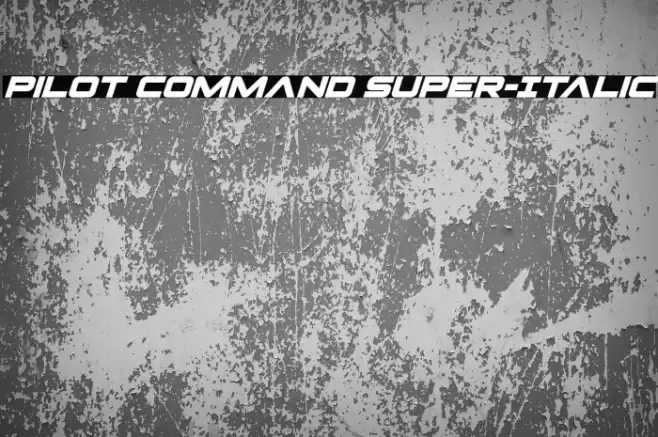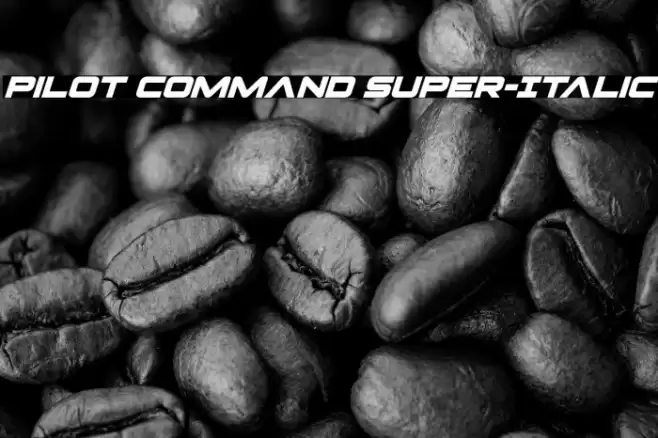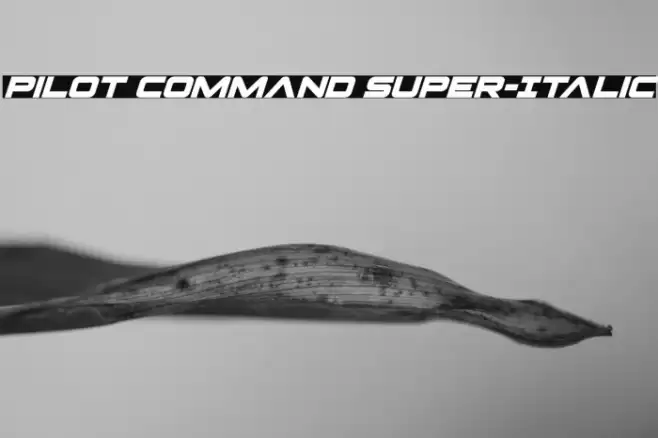
Pilot Command Super-Italic Font
Pilot Command Super-Italic Description
This font features a dynamic and futuristic design with a strong italic slant, giving it a sense of motion and speed. The characters are bold and angular, with sharp edges and a geometric structure that conveys a modern and technological feel. The uppercase and lowercase letters maintain a consistent style, with the lowercase mirroring the uppercase in form but slightly reduced in size. The numerals and special characters are designed to match the overall aesthetic, ensuring a cohesive look across all glyphs. The font's design is ideal for projects that require a bold and impactful statement, such as branding for tech companies, sports teams, or automotive industries.
A bold, italic, and futuristic font with angular, geometric characters from Uncategorized fonts.
- Proposed Projects: Ideal for tech branding, sports logos, automotive designs, and dynamic advertising.
- Use Case: Logos, Headlines, Branding